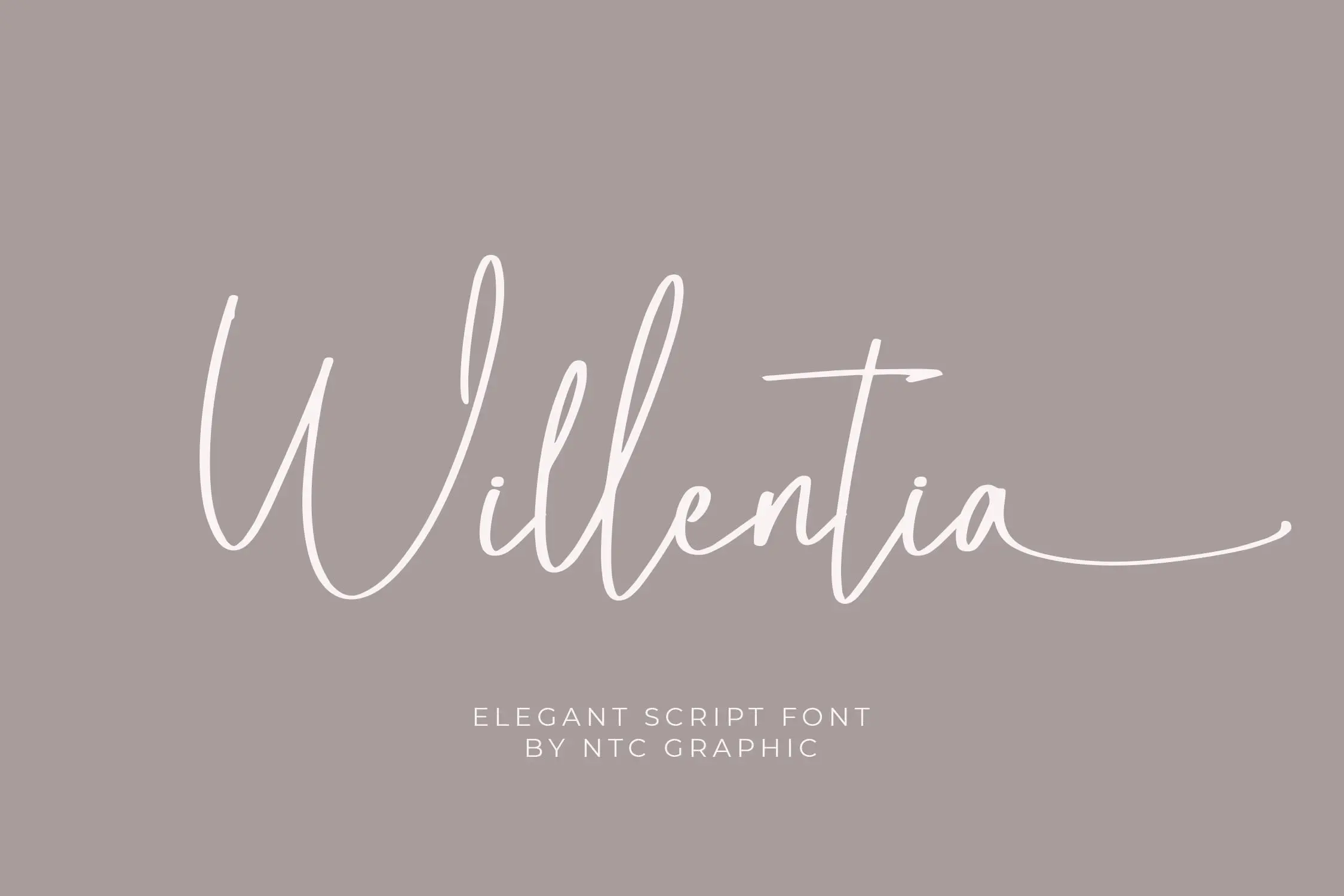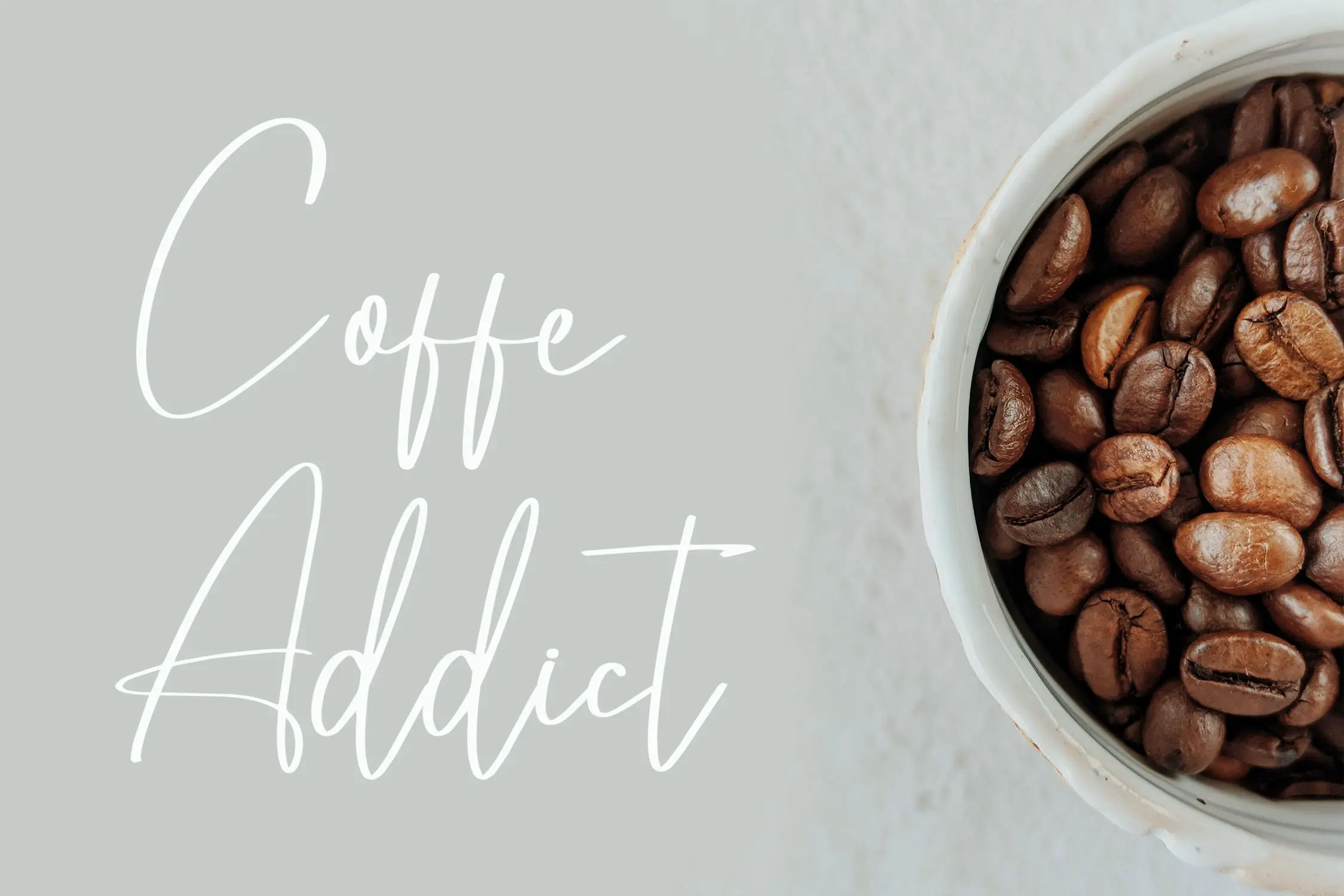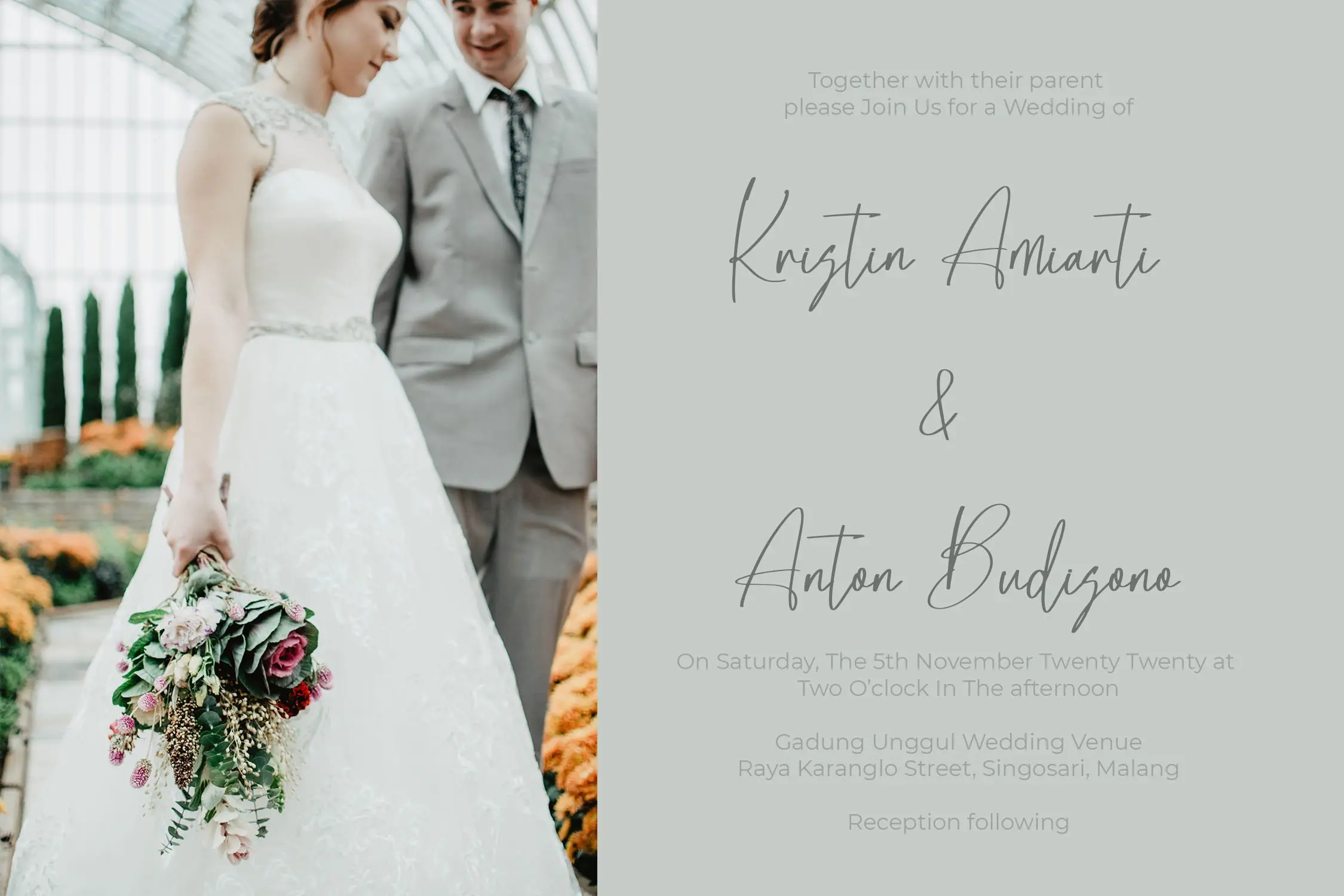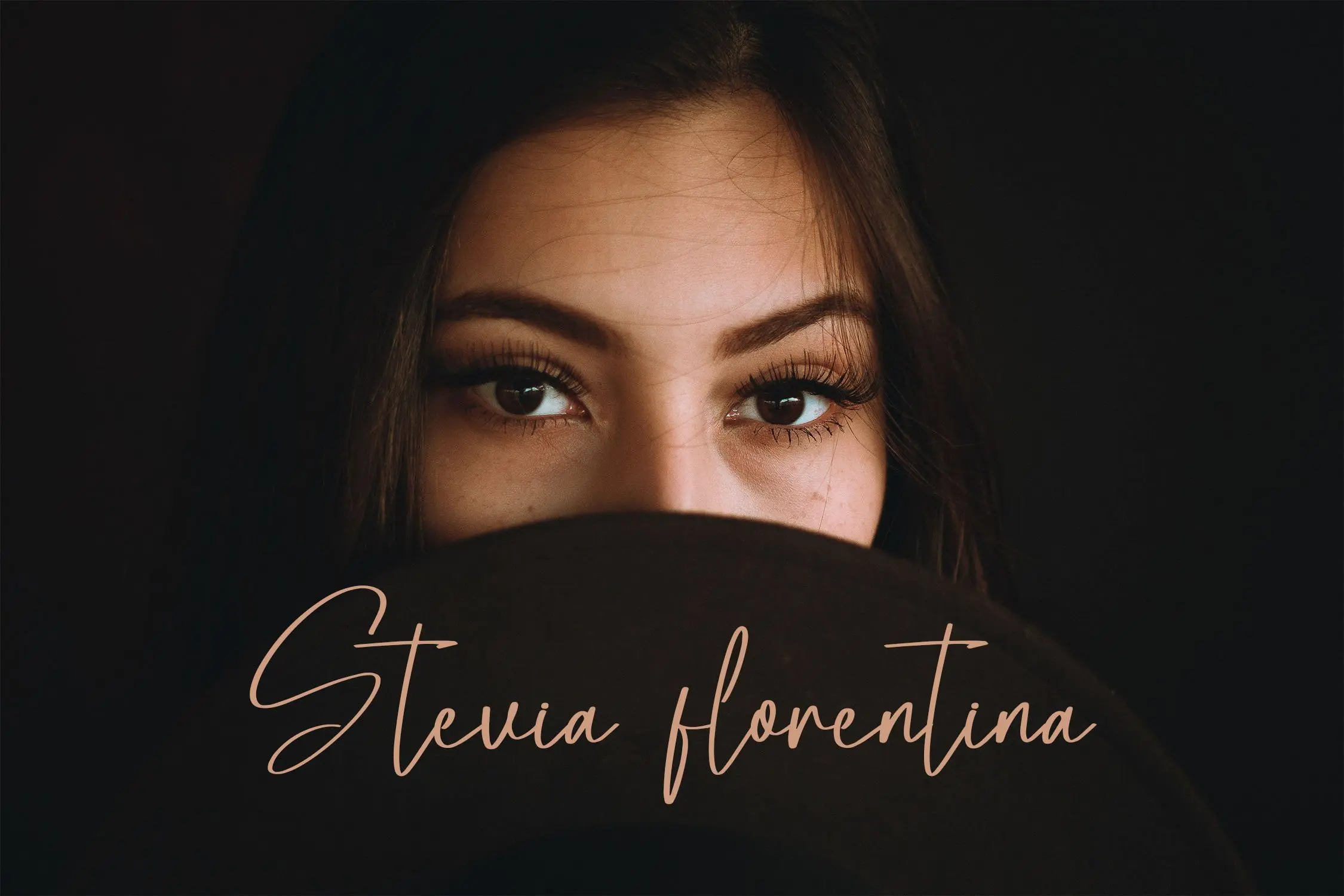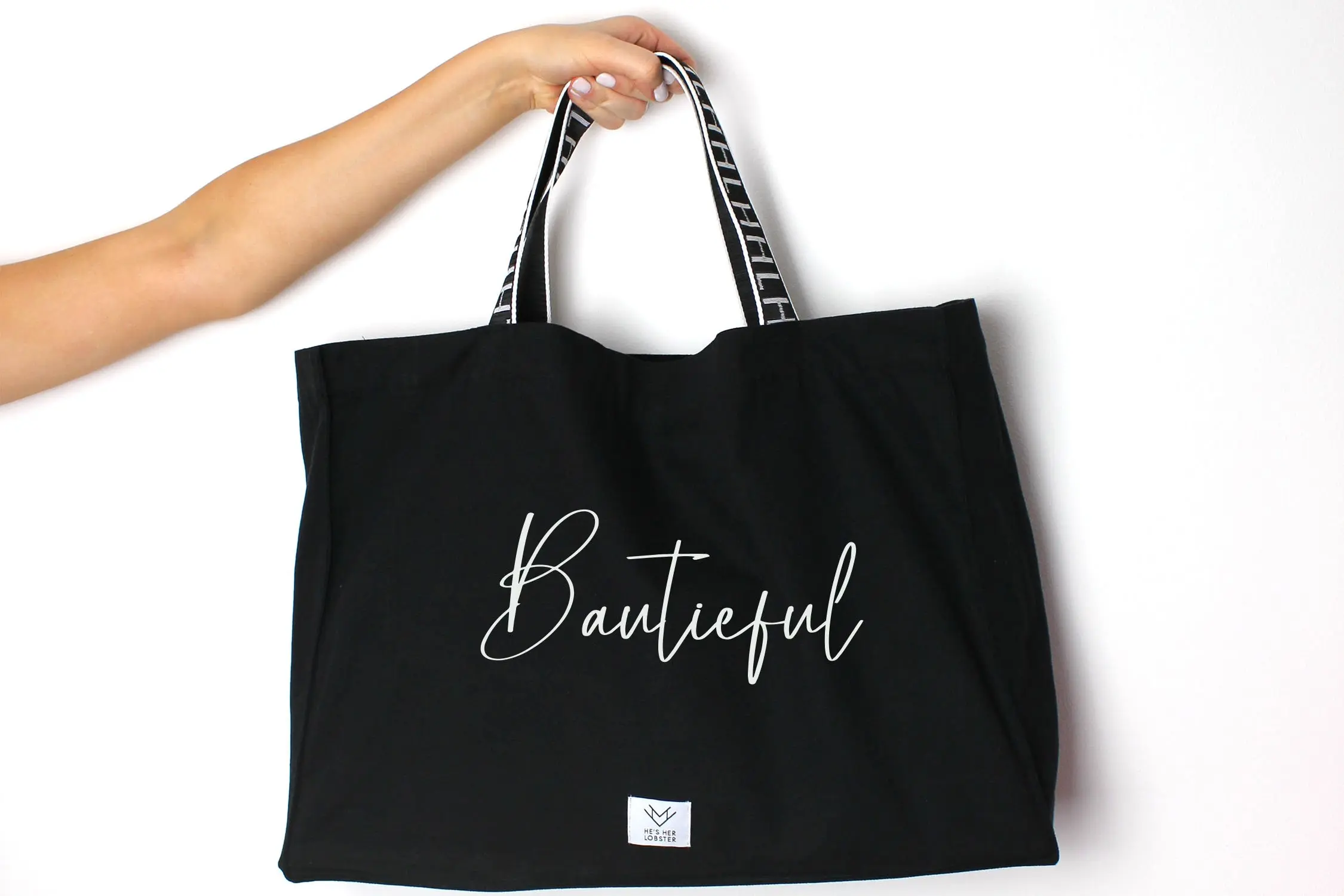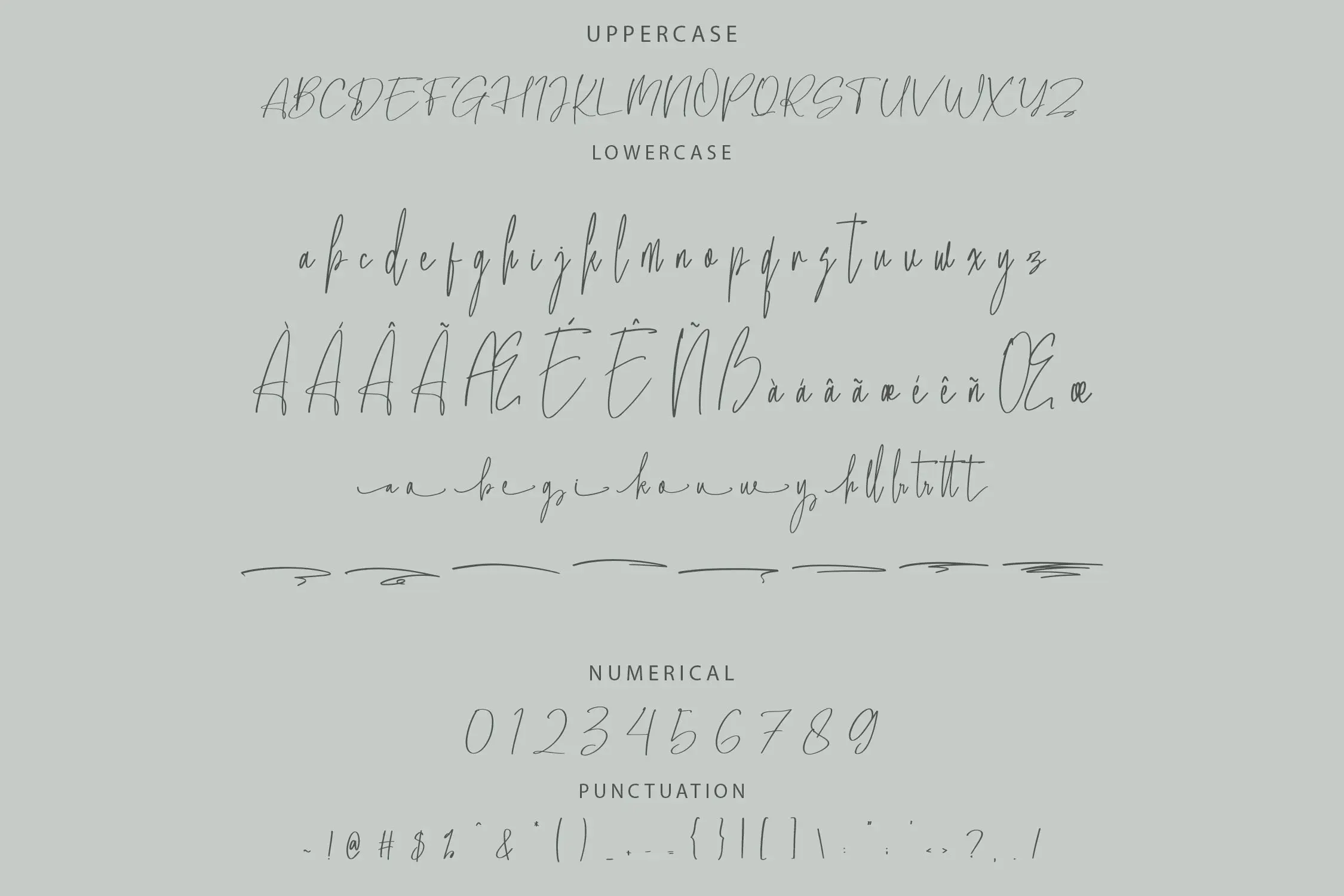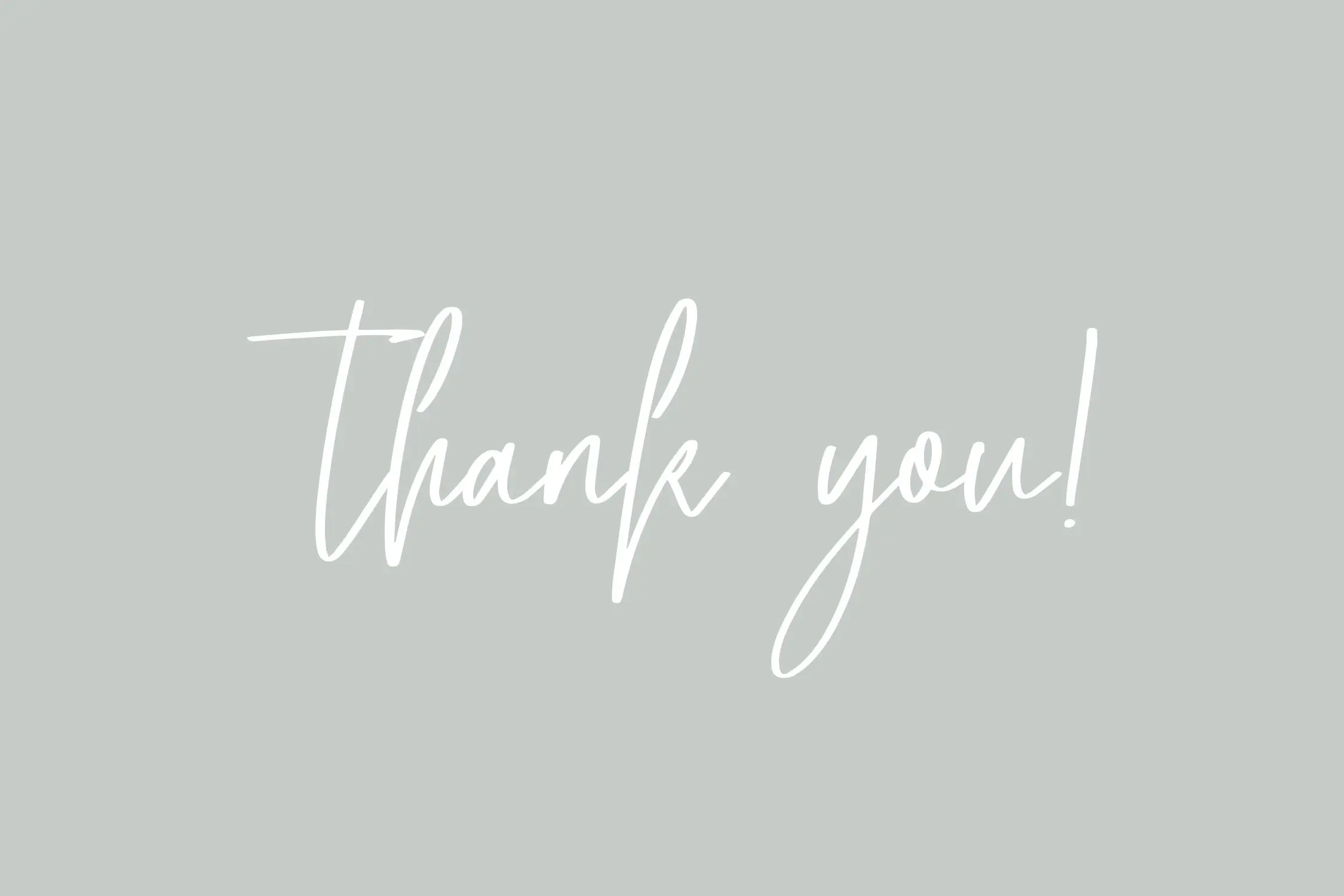
Willentia is a beautiful script font with an elegant and feminine style. Is a font style that is made with scratches and curvature shapes font characters are very beautiful. Can be applied to support the graphic appearance of the product to be more attractive and unique. This font is suitable for making previews and covers, wedding invitations, logo designs, shirt designs, and other feminine graphic needs.
- Ligature
- Stylistic Alternate
- Swashes